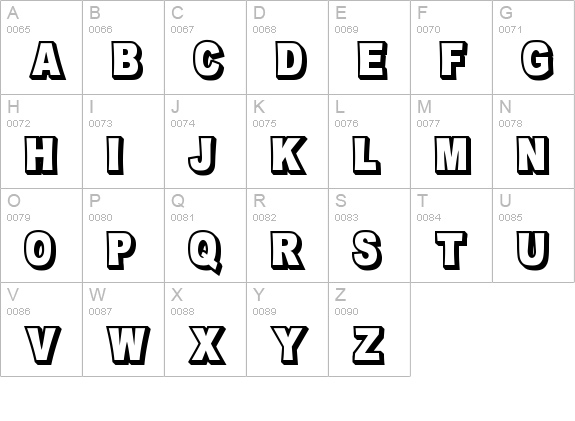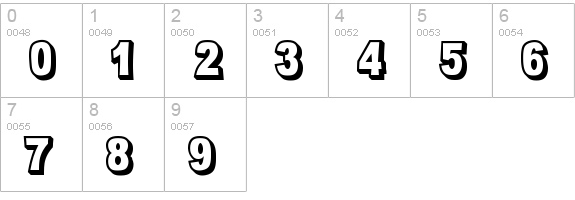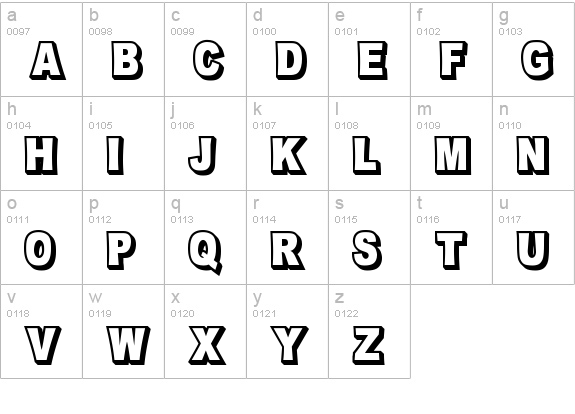
OMNIBLACK Outline font is a stunning display typeface that is sure to make a bold and impactful statement in any design project. With its sleek and modern outline design, it captures attention and adds a touch of sophistication to any text. This font is perfect for a variety of creative endeavors, such as headlines, logos, posters, and more. Its unique style and striking appearance make it a versatile choice for both digital and print designs. OMNIBLACK Outline font is not only visually captivating, but it also offers incredible functionality. Its clean lines and well-defined shapes ensure legibility even at smaller sizes, making it ideal for body text as well. One of the best aspects of OMNIBLACK Outline font is that it is free to download. You can easily access this font at FontsMarket.com, where it is available for instant download. This means you can start using this remarkable font right away, without any hassle or cost. Whether you are a professional designer or a hobbyist, OMNIBLACK Outline font is a must-have addition to your font collection. Its versatility, visual appeal, and the fact that it is freely available make it an extraordinary choice for all your design needs. Don't miss out on this incredible typeface that is sure to elevate your projects to new heights.